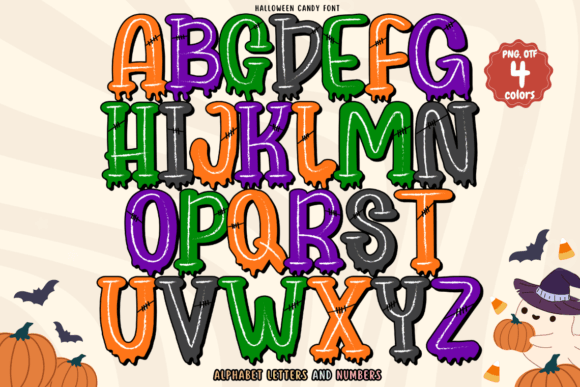
Spicing Up Your Halloween Designs with the Perfect Font
As the leaves begin to change colors and the air grows crisp, I find myself craving the sweet taste of creativity. There’s something magical about designing for Halloween – the spooky atmosphere, the thrill of the unknown, and of course, the candy!
Enter the Halloween Candy Font, a vibrant and playful handwritten font that captures the essence of this sugary season. This delightful font is designed to add a burst of color and whimsy to all your autumn and Halloween-themed projects. Whether you’re a seasoned designer or a crafty enthusiast, Halloween Candy Font is a must-have for anyone looking to elevate their fall and holiday designs. Its lively style and Halloween flair make it an ideal choice for creating eye-catching posters, party invitations, and seasonal greeting cards.
- Unique Characteristics: Halloween Candy Font features a unique, hand-drawn design with a playful and spooky theme, making it perfect for Halloween-themed designs, packaging, and marketing materials.
Halloween Candy Font Review
Overall, I found the Halloween Candy Font to be a unique and playful addition to any design project. ✨ It’s perfect for those who want to add a spooky or festive touch to their branding or marketing materials. The font is highly customizable, allowing users to adjust the size, color, and spacing to suit their needs.
Here are some of the things that I think work well in this font:
- ✨ Highly customizable: As I mentioned earlier, the font offers a range of options for adjusting its appearance.
- ✨ Playful and fun: The font is perfect for designs that require a lighthearted and whimsical touch.
- ⚠️ Limited flexibility: While the font is highly customizable, it may not be suitable for designs that require a more serious or formal tone.
- ⚠️ Overuse: The font’s playful nature can become overwhelming if used excessively.
- ⚠️ Limited font pairing options: The font may not pair well with more traditional or serif fonts.
In conclusion, the Halloween Candy Font is a great option for designers who want to add a fun and playful touch to their projects. While it may not be suitable for all designs, it’s definitely worth considering for those who want to create a spooky or festive atmosphere.
To get the most out of the Halloween Candy Font, use it for seasonal designs and themes. Pair it with other spooky fonts and graphics to create a cohesive look. Experiment with different font sizes and colors to add depth and interest to your designs.
The Halloween Candy Font is perfect for creating spooky invitations, party decorations, and social media posts. You can also use it for creating Halloween-themed graphics, such as candy wrappers, spider webs, and jack-o-lanterns.